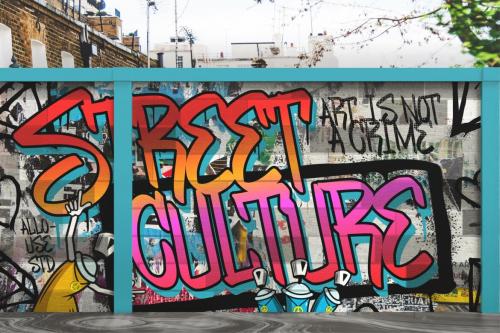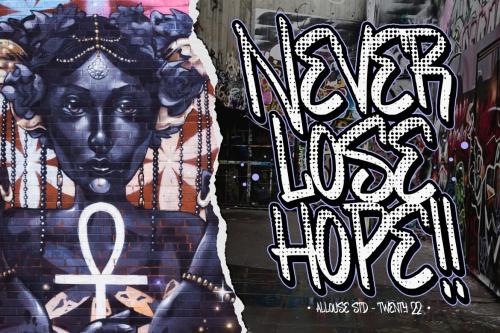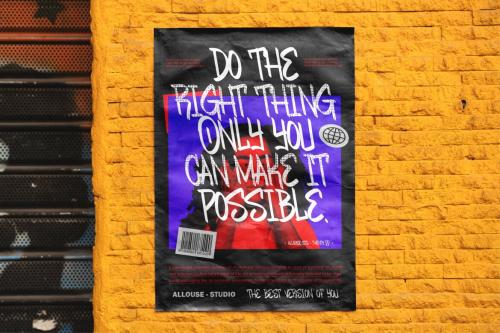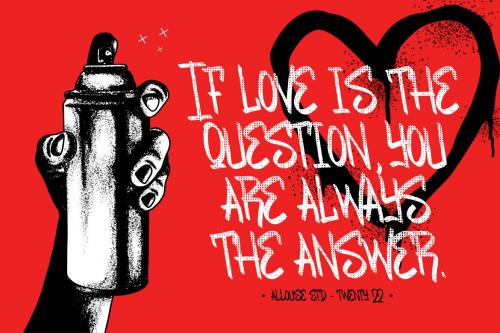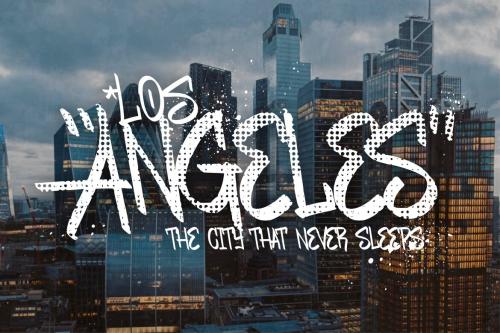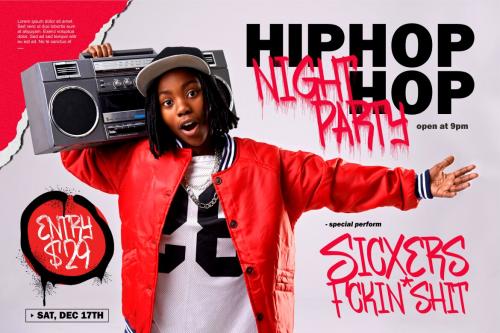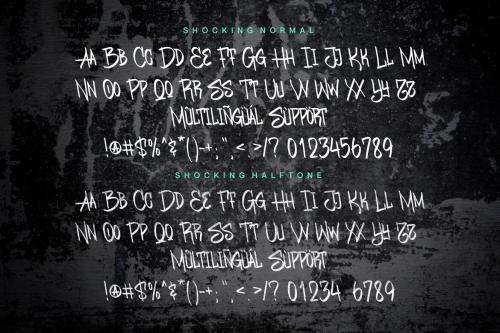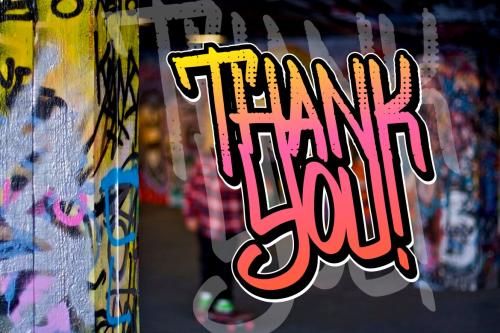
Deeezy - Shocking Graffity Font
Introducing by Allouse.Studio
Proudly Present, Shocking
Shocking A Graffity Font With Two Style
Shocking is perfect for product packaging, branding project, megazine, social media, wedding, or just used to express words above the background.